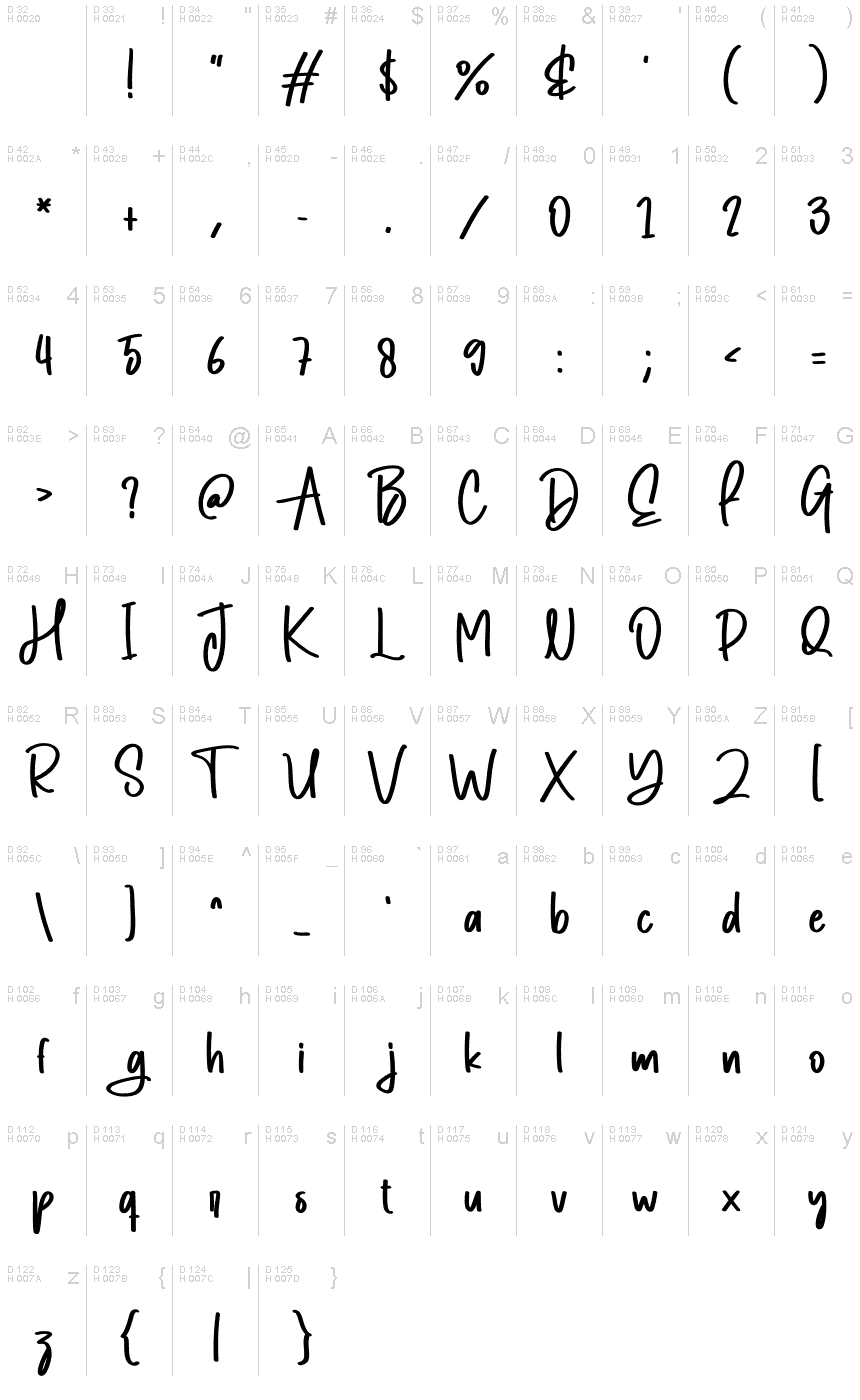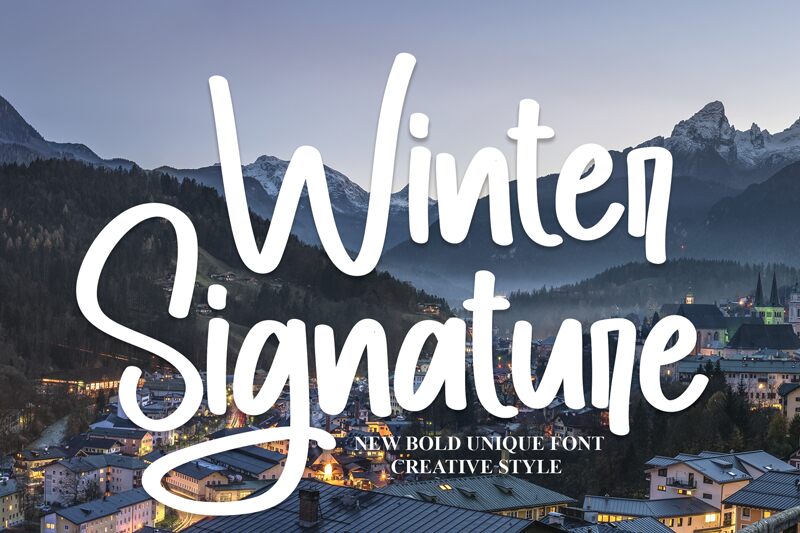
Winter Signature
Winter Signature by Scratchones breathes a personal touch into every creation, seamlessly blending the artistry of handwritten script with the sophistication of a signature style. Its fluid strokes and elegant curves evoke the warmth and charm of a personal note, making it an exquisite choice for invitations, branding, and advertising campaigns that require a bespoke feel.
The font's aesthetic appeal lies in its organic form—each letter crafted to flow into the next with an effortless grace. The varying line weights suggest the movement of a pen on paper, which adds to its authentic handwritten character. This typeface is not just visually appealing but also highly versatile, lending itself beautifully to an array of creative projects where individuality and elegance are paramount.
Winter Signature stands out as an ideal candidate for those looking to infuse their work with personality without sacrificing professionalism. Whether it's logo design, editorial content or personalized merchandise, this font offers designers a gateway to distinguish their work with both visual impact and emotional resonance.